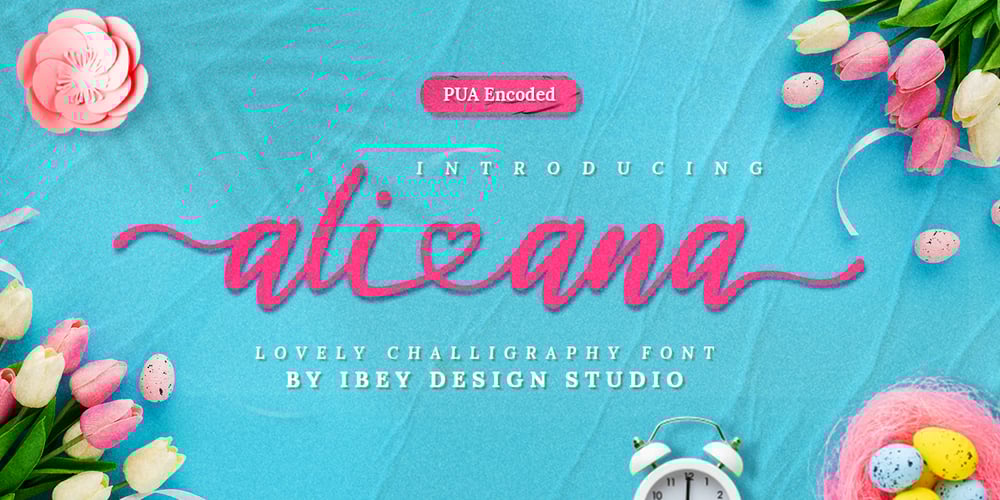
Ali Ana Font Family was designed by Ikrar Bey Khubaib and published by IbeyDesign. Ali Ana contains 1 styles and family package options. Ali Ana- Heart Font feels equally charming and elegant. It looks stunning on wedding invitations, thank you cards, quotes, greeting cards, logos, business cards, and every other design which needs a handwritten touch.